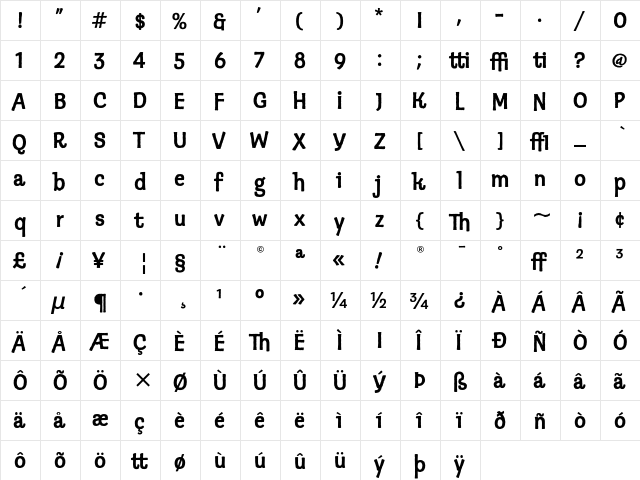
Klepto ITC Regular
Design Context for Klepto ITC Typeface
Klepto ITC is a composed and adaptable typeface that performs quietly and consistently across a wide range of design contexts.